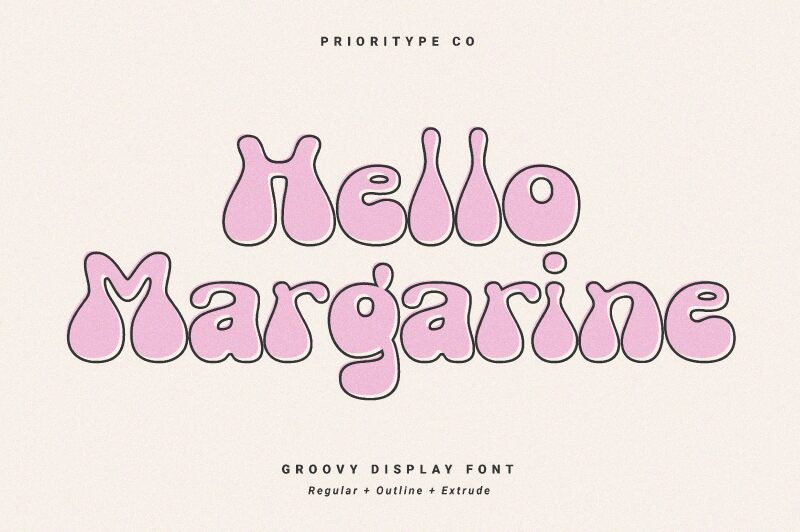
Hello Margarine Outline is a groovy and extra-bold display font from Prioritype Co.
Its semi-expanded width adds an energetic touch to any design project, making it perfect for eye-catching headlines, logos, and posters. The boldness of this font is ideal for creating attention-grabbing visuals that demand to be noticed. Whether you're designing retro-inspired album covers or vibrant event flyers, Hello Margarine Outline will ensure your message stands out with its unique and playful style.
Let your creativity run wild with this lively and expressive font!